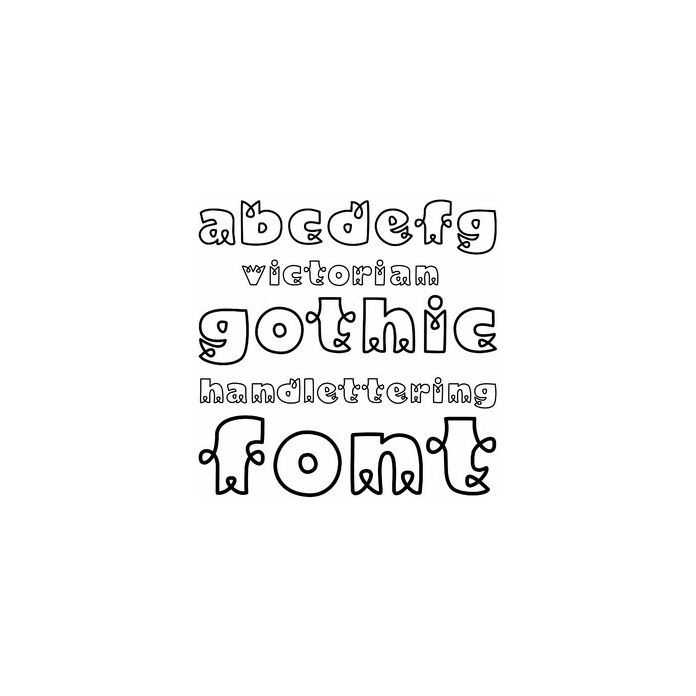
Cute and unique, Victorian Gothic is a fun vintage style decorative font for Halloween, Christmas, Birthday, and personalization projects. Includes alphabet, numbers, and punctuation.